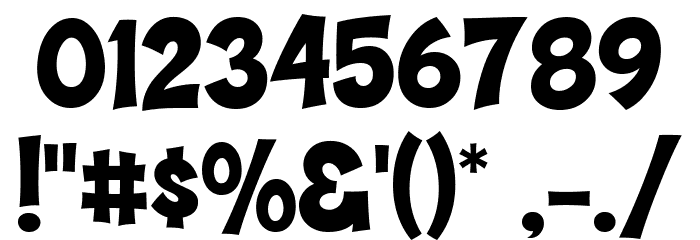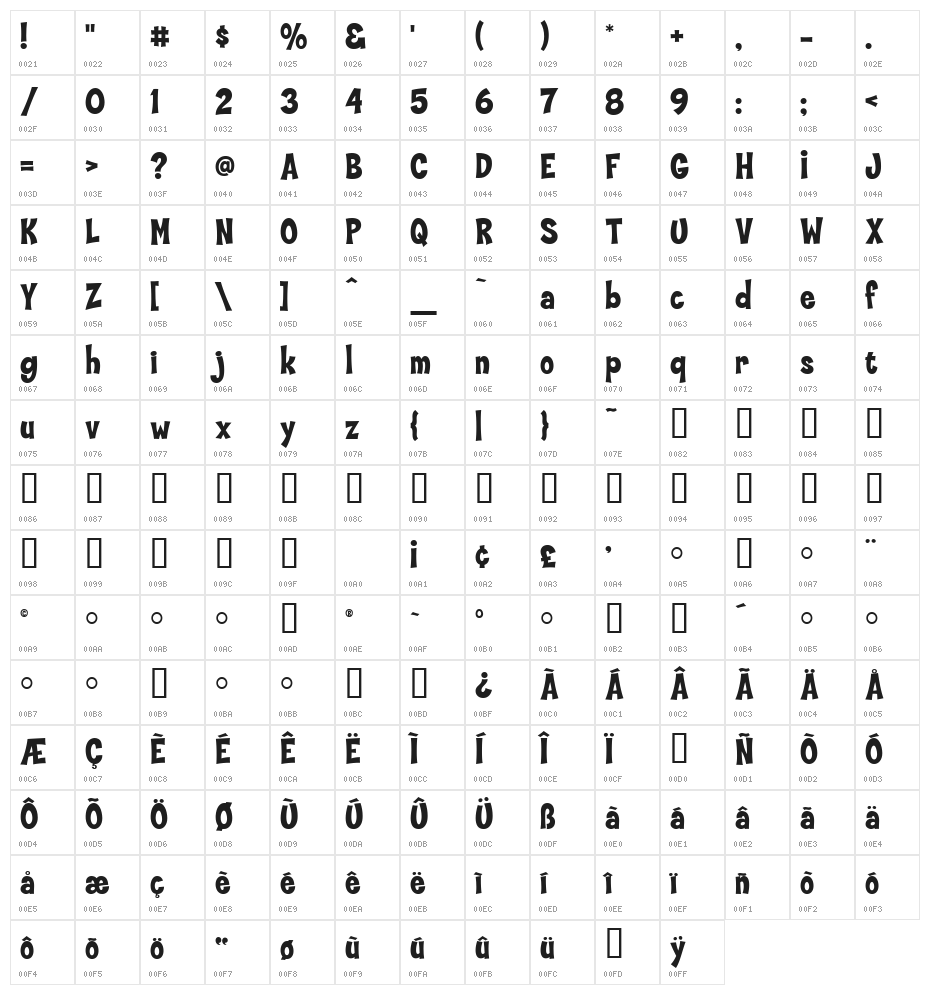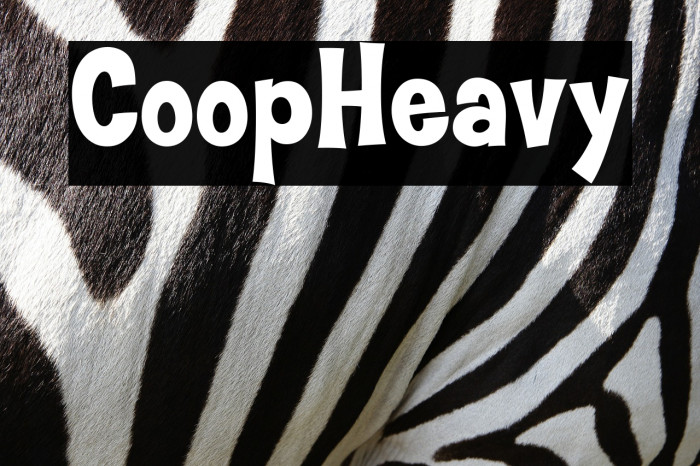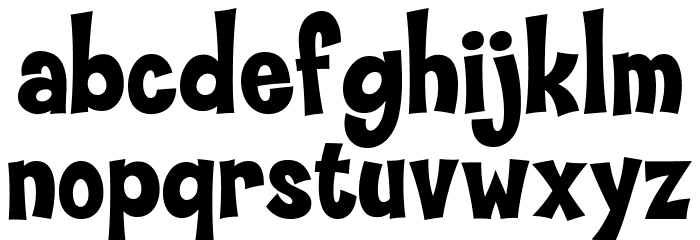
CoopHeavy Font
CoopHeavy Description
This font is characterized by its bold and playful design, featuring thick, rounded strokes that convey a sense of fun and energy. The letters have a slightly irregular shape, giving them a hand-drawn appearance that adds to their charm. The uppercase and lowercase letters maintain a consistent style, with exaggerated curves and a whimsical flair. The numbers and special characters follow the same design principles, ensuring a cohesive look across all elements. This font is perfect for projects that require a lively and eye-catching typeface.
Overall StylePlayful, Energetic, Whimsical
Proposed ProjectsIdeal for children's books, playful branding, party invitations, and eye-catching posters.